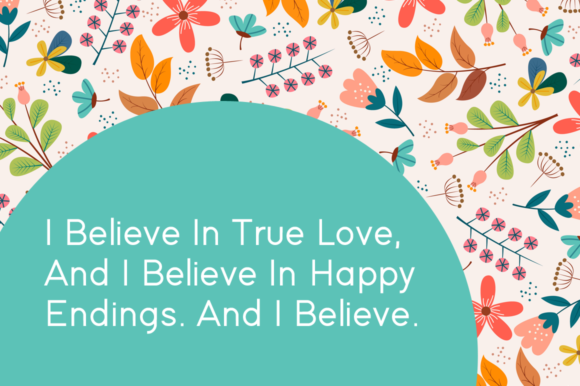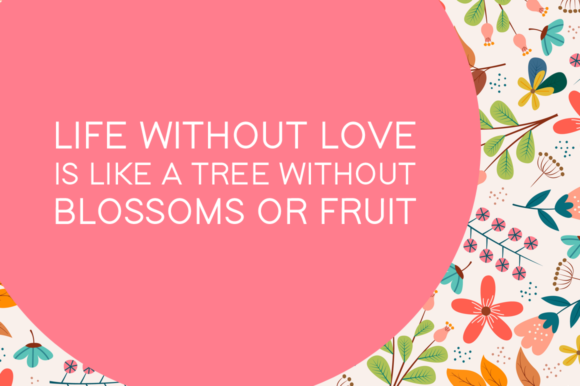
The Art of Creative Expression: Unleashing the Power of Inure Font
Have you ever stared at a blank canvas, notebook, or screen, waiting for that perfect spark of inspiration to strike? We’ve all been there – trying to bring our creative ideas to life, but something’s missing. Maybe it’s the right words, the perfect font, or a dash of personality. For designers, finding the right font can be the difference between a bland design and a breathtaking work of art.
Enter Inure Font, a modern and casual display font designed to breathe life into your creative projects. Whether you’re crafting Instagram captions, designing calligraphy scripts for DIY projects, or simply looking for a unique font to elevate your brand, Inure Font is the perfect tool to turn your ideas into stunning visuals. With its versatility and charm, Inure Font is an invaluable asset for designers seeking to add a personal touch to their work.
Inure Font Key Features
- Font Family: Inure Font is a modern sans-serif font family designed for digital use.
- Font Size: The font family includes various font weights, ranging from 100 to 900, with corresponding font sizes.
- Resolution: Suitable for high-resolution displays, with a minimum recommended resolution of 96 DPI.
- Unique Characteristics: Inure Font features a clean, geometric design with a focus on legibility and readability, making it ideal for digital interfaces and user interfaces.
- Character Set: The font family includes a comprehensive character set, including Latin, Greek, and Cyrillic scripts, as well as a range of punctuation and symbol glyphs.
Inure Font Review
Overall, I was impressed with the Inure font, especially its clean and modern aesthetic ✨. The font’s geometric shapes and refined lines give it a sophisticated look that’s perfect for corporate and professional applications. The font’s high x-height and even spacing make it easy to read, even at small font sizes.
One of the standout features of Inure is its versatility ✨. It comes in a range of weights and styles, from light to bold, making it easy to customize to fit your design needs. The font also supports a wide range of languages, making it a great choice for international applications.
- ⚠️ Limited expressive range: While Inure is great for clean and modern designs, it may not be the best choice for projects that require a lot of personality or emotional depth.
- ⚠️ Limited script options: If you need to include script or cursive text in your design, Inure may not be the best choice, as it only includes a limited range of script options.
In conclusion, Inure is a solid choice for designers looking for a clean and modern font. While it may have some limitations, its versatility and high-quality design make it a great addition to any font library.
Tips for Getting the Most Out of Inure Font
Use Inure font for titles, headings, and emphasis to add a touch of elegance and sophistication to your designs.
Combine Inure font with other elegant fonts to create a unique and stylish typography.
Experiment with different font sizes and colors to make the most out of Inure font.
Inure font is suitable for:
Business cards and marketing materials
Personal branding and portfolio designs